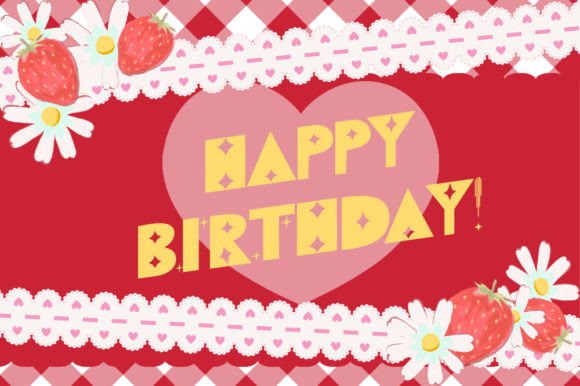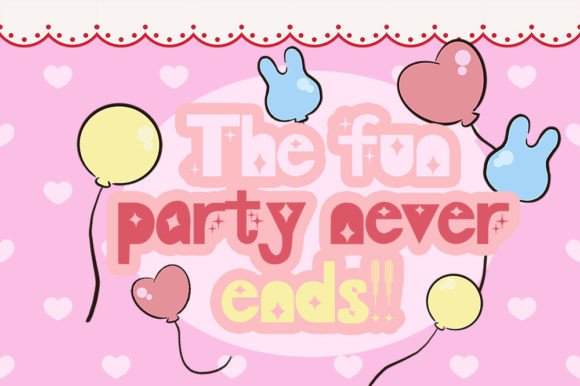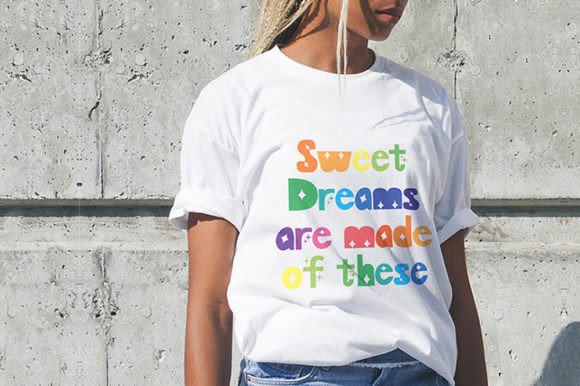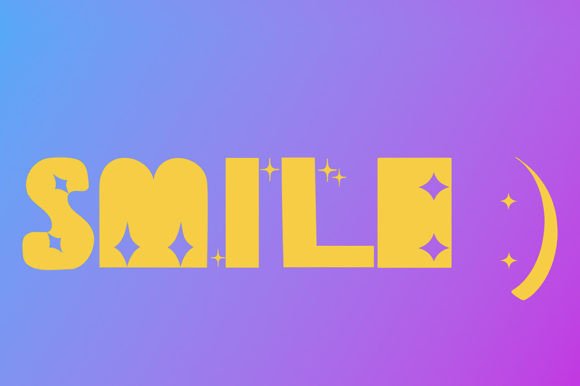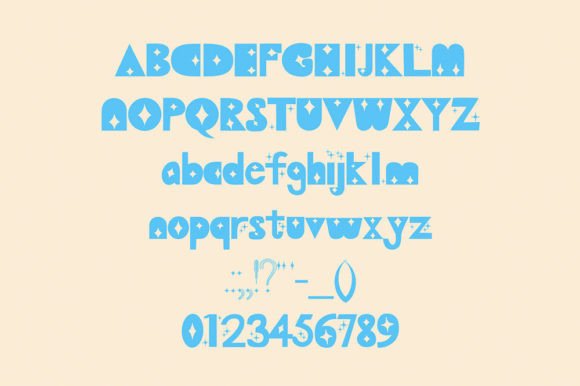
Sparkling Creativity: The Allure of Kira Kawaii Font
Have you ever stumbled upon a font that makes you squeal with excitement? For many designers, that moment of pure creative joy is when they discover the Kira Kawaii Font. This adorable typeface is more than just a pretty face – it’s a sparkly reflection of the magic that happens when art and playfulness come together.
Designed with the spirit of vintage manga female protagonists in mind, Kira Kawaii Font is a quirky and charming addition to any design project. Its suitability for invitations, posters, digital planners, t-shirts, and more makes it a valuable asset for designers looking to add a touch of whimsy to their work.
Kira Kawaii Font Key Features
- Font Family: Kira Kawaii is a Japanese-style font designed to evoke a cute and playful aesthetic.
- Character Count: The font includes a comprehensive set of characters, including uppercase and lowercase letters, numbers, punctuation, and Japanese characters.
- Unique Characteristics: The font’s distinctive design features include rounded shapes, exaggerated lines, and a pastel color palette, creating a whimsical and endearing visual effect.
Kira Kawaii Font Review
I’ve had the chance to work with the Kira Kawaii font, and I must say it’s a mixed bag. ✨ On the plus side, the font’s playful and whimsical feel is perfect for projects that require a touch of childlike charm. It’s great for creating a sense of wonder and magic, especially in illustrations and children’s content.
Another advantage of the Kira Kawaii font is its wide range of language support. It’s available in multiple weights, styles, and languages, making it a versatile option for designers working on global projects.
- ⚠️ The font’s readability can be a concern, especially at smaller font sizes. The whimsical design can make it difficult to read for some users.
- ⚠️ The font’s style can feel overly sweet or childish in some contexts, which may not be suitable for all projects.
- ⚠️ The font’s design can be distracting in certain applications, such as body text or long blocks of text.
The Kira Kawaii font is a fun and playful addition to any design project. While it may not be suitable for all projects, it’s a great choice for those that require a touch of whimsy and charm. With its wide range of language support and versatile design options, it’s definitely worth considering for your next project.
Tips for Getting the Most Out of Kira Kawaii Font
Use Kira Kawaii Font to add a playful and whimsical touch to your designs.
Pair it with bright colors and bold graphics to create eye-catching visuals.
Experiment with different font sizes and styles to create a unique look.
Kira Kawaii Font is perfect for:
Creative projects, such as invitations, party decorations, and social media graphics.
Children’s products, such as toys, clothing, and stationery.
Food and beverage branding, such as candy and dessert packaging.
Q: Is the Kira Kawaii Font available in different weights and styles?
Yes, the Kira Kawaii Font is available in several weights and styles, including Regular, Bold, Italic, and Bold Italic. These variations allow you to create a range of visual effects and add depth to your designs. The font also supports OpenType features, such as ligatures and swashes, which can be accessed in design software that supports these features.